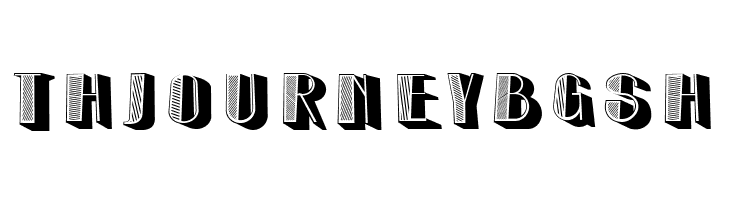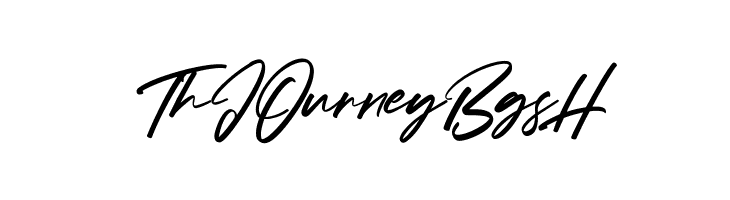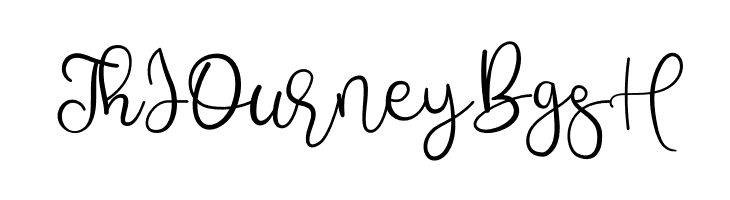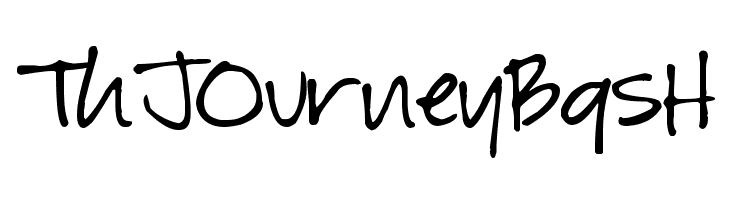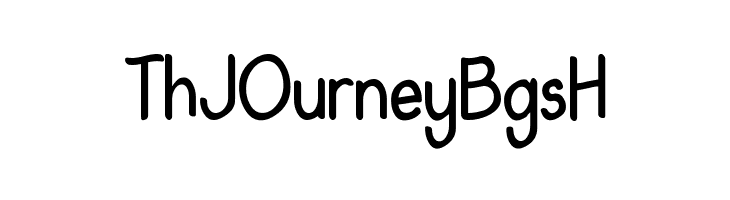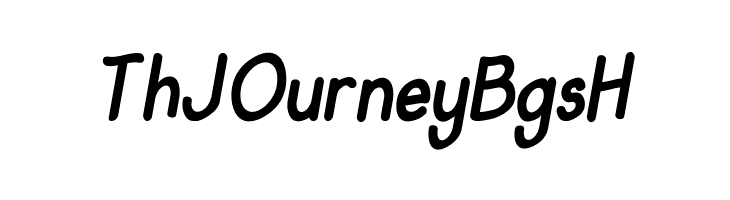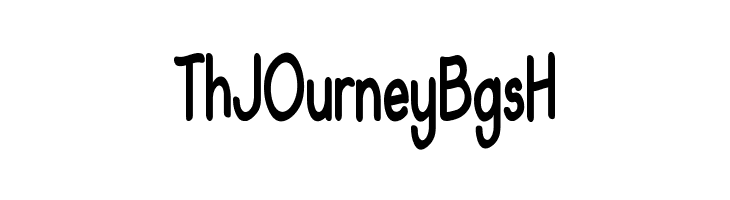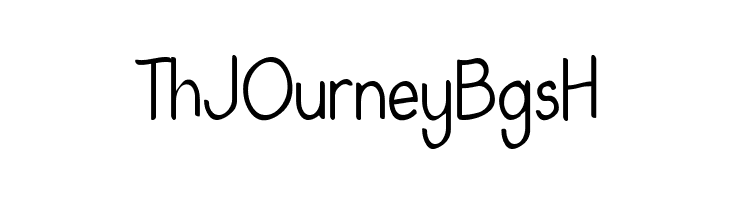
A playful, rounded font with a light and airy feel, perfect for adding personality.
A playful, handwritten-style font with a casual, italicized appearance.
A playful, rounded font with smooth curves and a friendly appearance.
A playful, narrow font with rounded, whimsical letterforms.
A dynamic, handwritten script font with bold, fluid strokes.
A playful, handwritten font with bold, expressive strokes.
A playful, handwritten font with dynamic strokes and a whimsical style.
A bold, playful font with a 3D effect and intricate line patterns.
A playful, whimsical script font with flowing, interconnected letters.